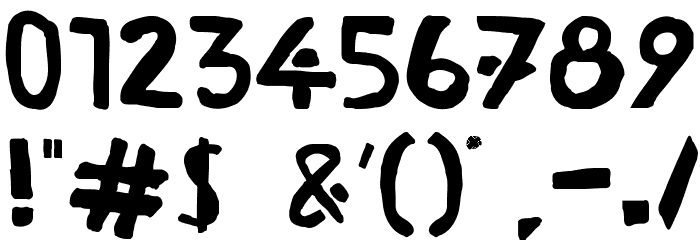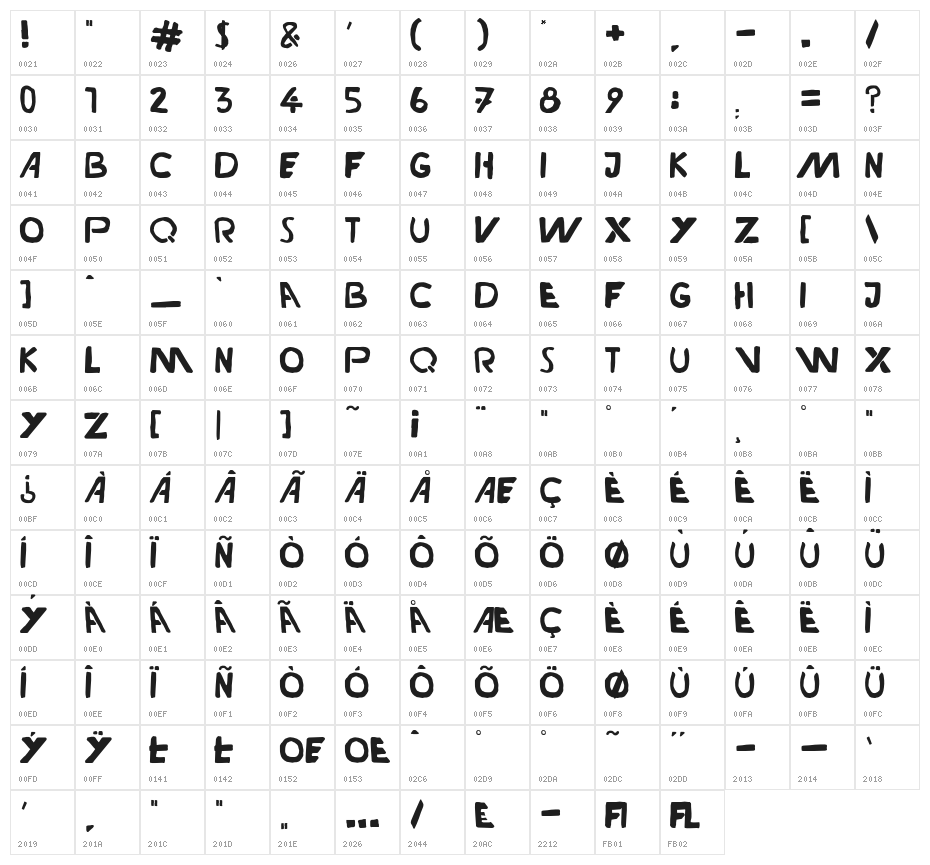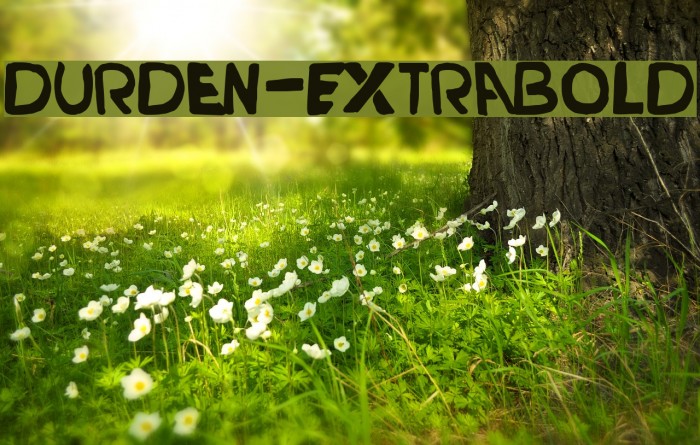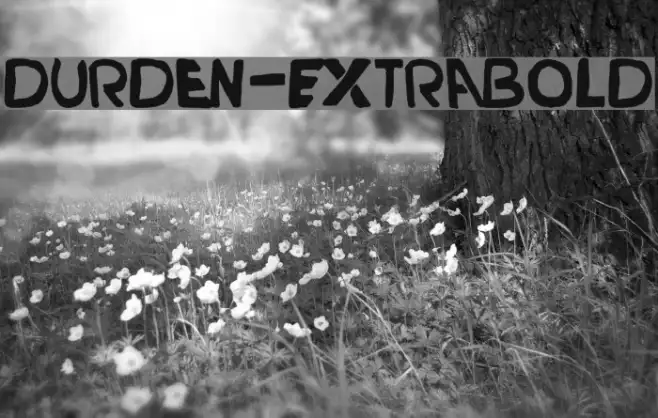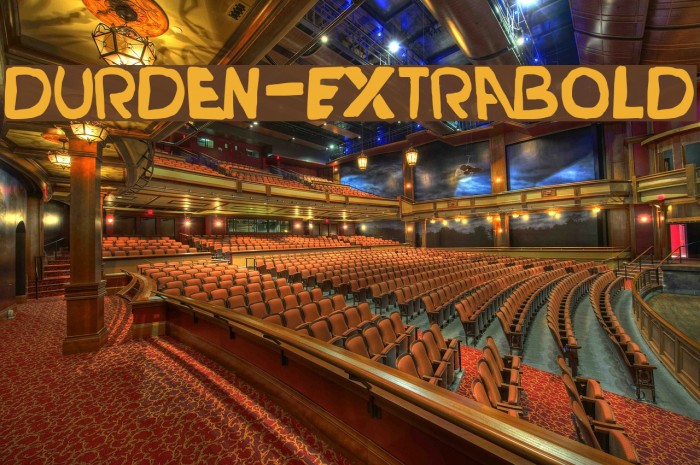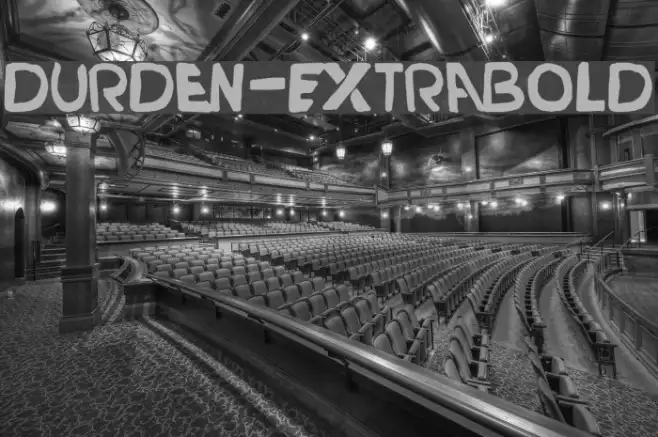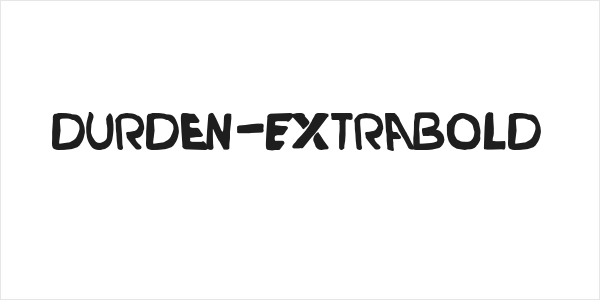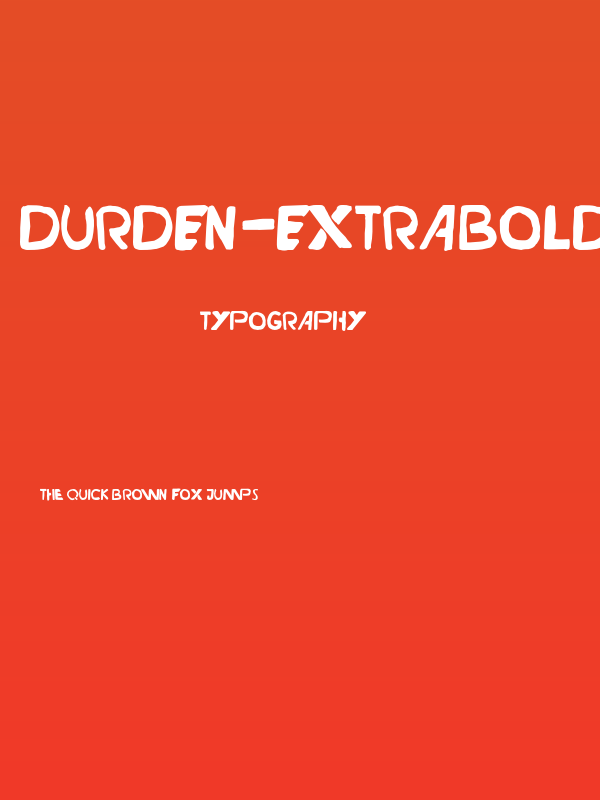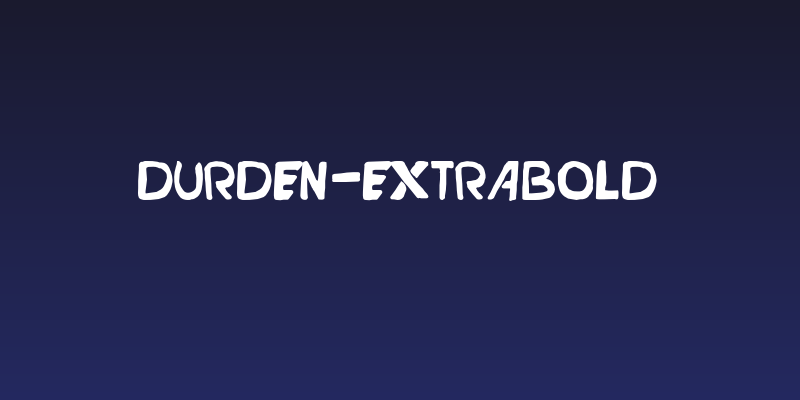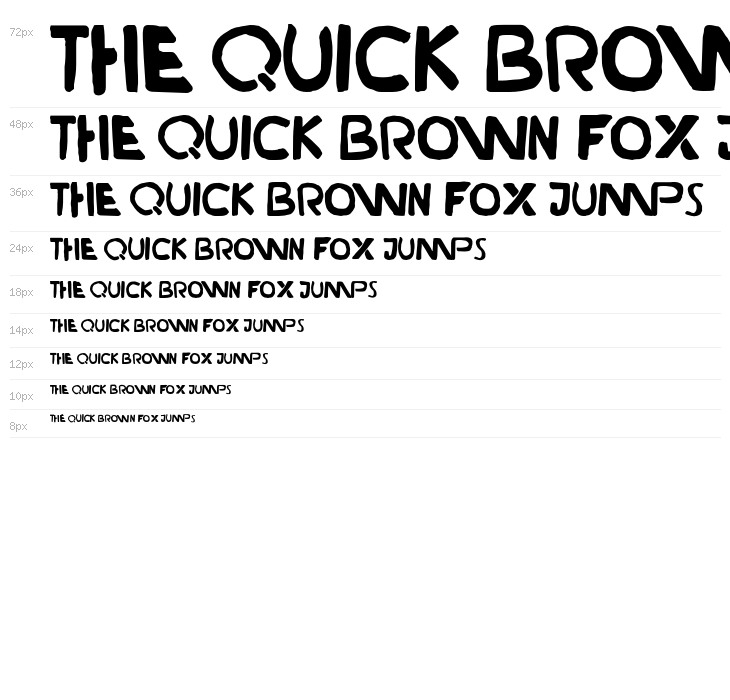
Durden-ExtraBold Font
Durden-ExtraBold Description
This font features a bold and dynamic style with a hand-drawn appearance. The characters are thick and slightly irregular, giving them a playful and energetic feel. The uppercase letters are particularly striking, with a strong presence that commands attention. The numbers and special characters maintain the same boldness, ensuring consistency across all glyphs. This font is ideal for projects that require a strong visual impact, such as posters, headlines, or branding materials.
| Proposed Projects | Ideal for posters, headlines, branding, and any project needing a strong visual impact. |